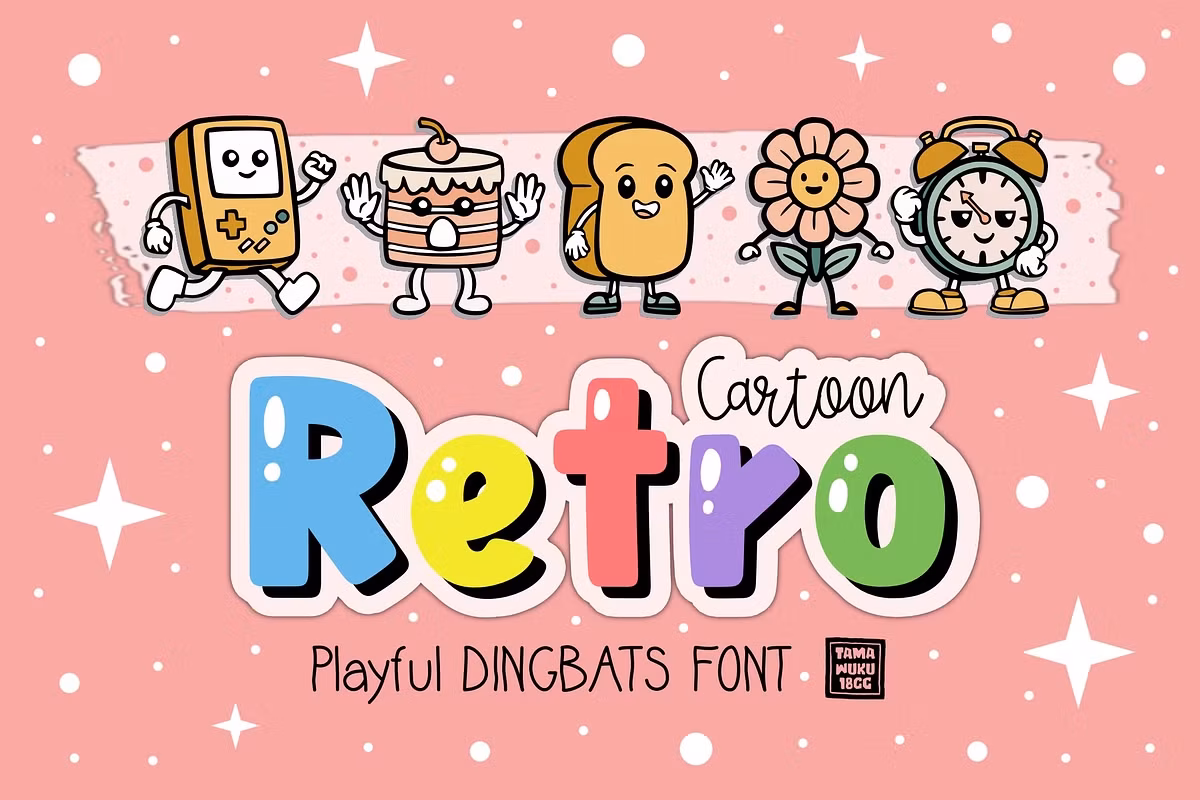
Retro Cartoon OTF Dingbats Font Free Download is a nostalgic and playful collection of cartoon-style icons and illustrations, packed into a fully functional dingbat font. Ideal for retro-themed designs, comic book layouts, kids' content, and creative branding, this font delivers a burst of vintage fun with every character. From funky shapes to expressive faces and quirky symbols, it’s perfect for adding personality to your visuals.
Designed for simplicity and creativity, this dingbat font works just like a standard typeface—just type a letter to drop in a unique cartoon-style element. Whether you're crafting t-shirts, stickers, packaging, or posters, these retro-inspired dingbats add a bold, graphic twist to any project.